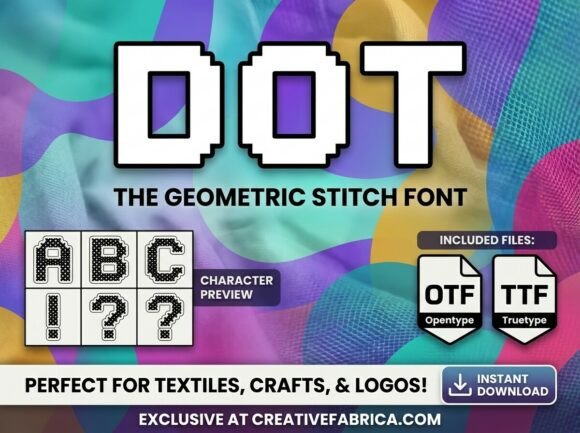
Celebrate the Beauty of Textile Arts with DOT: The Unique Display Font Inspired by Cross-Stitch Embroidery
In the world of typography, few fonts manage to capture the essence of traditional crafts while still exuding a modern aesthetic. However, DOT, a distinctive display font, achieves just that by drawing inspiration from the timeless tradition of cross-stitch embroidery. This unique typeface is meticulously crafted to reflect the intricate beauty of textile arts, making it an exceptional choice for designers and crafters looking to add a touch of artisanal prestige to their projects.
The Inspiration Behind DOT
DOT’s design is rooted in the classic look of cross-stitch embroidery, where patterns of “X” motifs are used to create images and text on a needlepoint canvas. The font’s massive, blocky letterforms are constructed from a rhythmic pattern of these “X” motifs, perfectly mimicking the appearance of thread on a canvas. This design approach not only pays homage to the traditional craft but also brings a sense of nostalgia and handcrafted charm to modern digital design.
Key Features of DOT
- Heavy Visual Weight: DOT’s bold and substantial letterforms make it perfect for headlines, titles, and any design element that needs to stand out.
- Pixelated, Artisanal Texture: The font’s texture, reminiscent of needlepoint, adds a unique, handmade feel to any project, setting it apart from more conventional digital fonts.
- Versatility: While DOT’s design is deeply rooted in traditional textile arts, its modern aesthetic ensures it can be used in a variety of contexts, from boutique branding to edgy fashion editorials.
Use Cases for DOT
DOT’s distinctive characteristics make it an excellent choice for a range of applications, including:
- Needlework Branding: For businesses specializing in embroidery, cross-stitch, or other forms of needlework, DOT offers a typographic solution that directly speaks to their craft.
- DIY Craft Workshop Headers: DOT’s artisanal vibe makes it perfect for promoting workshops, tutorials, or any event focused on handmade crafts.
- High-Concept Apparel Logos: Fashion brands looking to incorporate elements of traditional craftsmanship into their branding can leverage DOT for a unique and memorable logo.
- Creative Packaging for Handmade Goods: For small businesses selling handmade products, DOT can add a personal touch to packaging, highlighting the care and craftsmanship that goes into each item.
Why Choose DOT?
In a digital landscape where uniformity often prevails, DOT offers a refreshing departure with its distinctive, handcrafted aesthetic. By incorporating this font into your designs, you not only pay tribute to the traditional crafts that inspired it but also offer your audience a unique visual experience. Whether you’re a designer looking to stand out in a crowded market or a crafter seeking to brand your handmade goods with a personal touch, DOT provides the perfect blend of vintage charm and modern appeal.
DOT is more than just a font; it’s a statement of artisanal pride and a celebration of the intricate beauty found in textile arts. Its unique blend of traditional craftsmanship and modern design makes it an invaluable tool for anyone looking to add depth, character, and a sense of nostalgia to their projects. With DOT, designers and crafters can create visually striking and meaningful work that resonates with audiences and sets their brand apart.
So, if you’re ready to infuse your designs with the timeless charm of cross-stitch embroidery and the modern edge of digital typography, look no further than DOT. Embrace the beauty of the handmade and let this exceptional display font bring your creative visions to life.